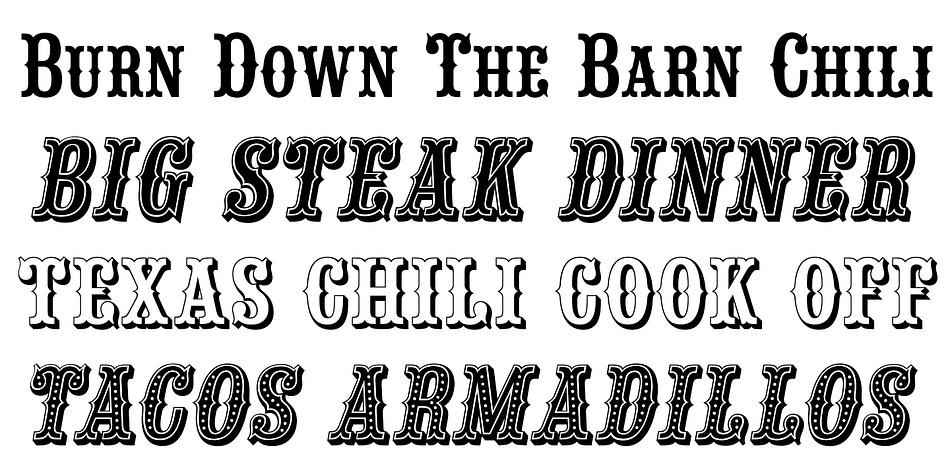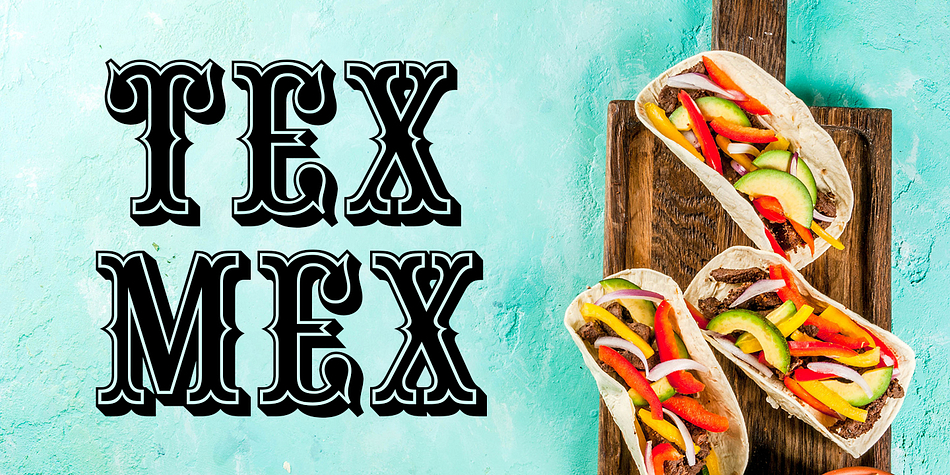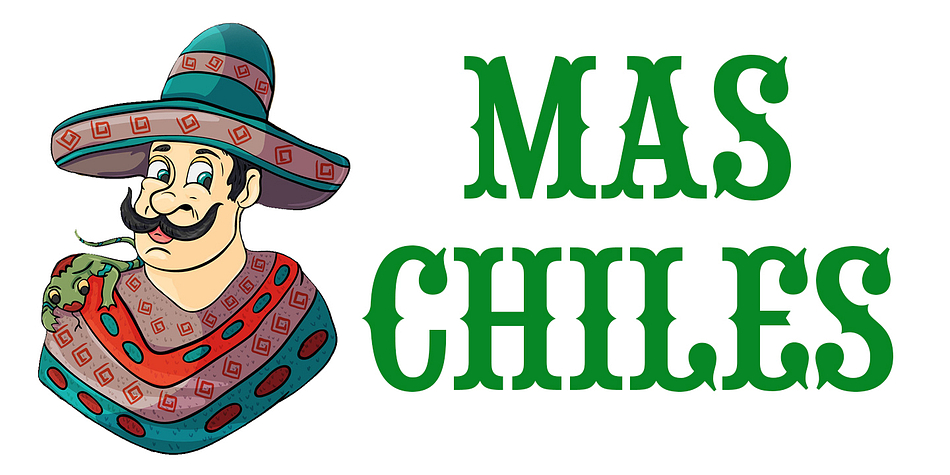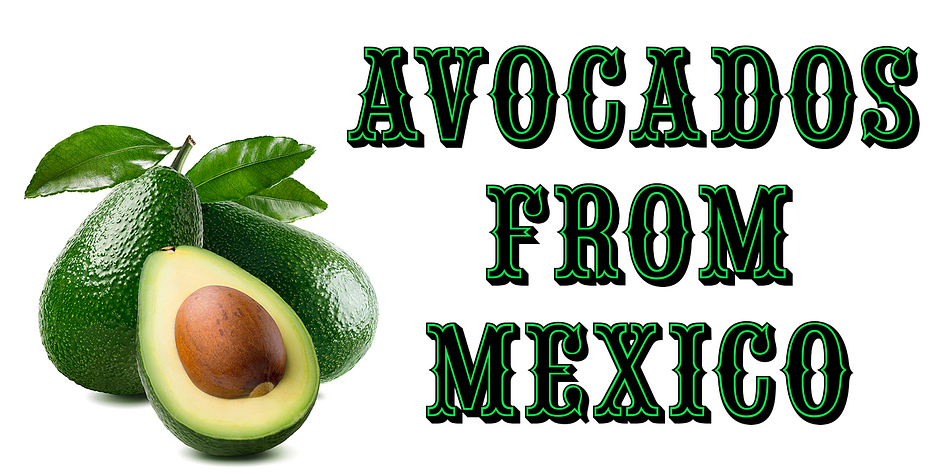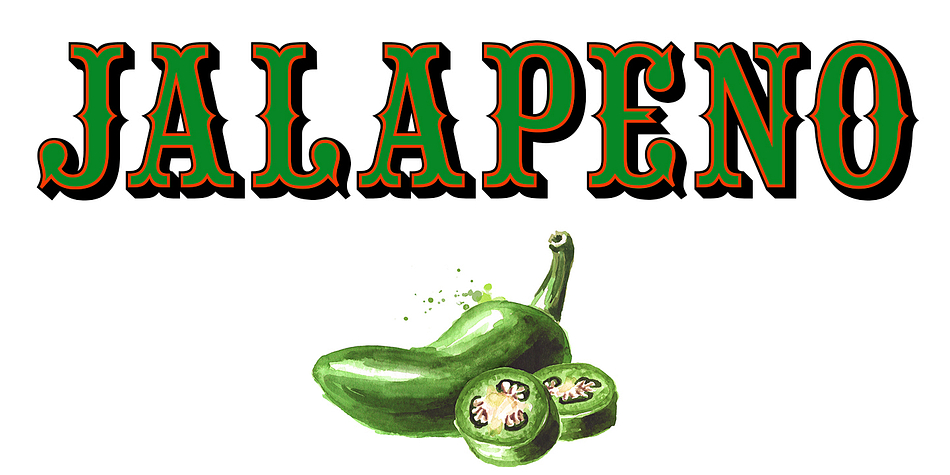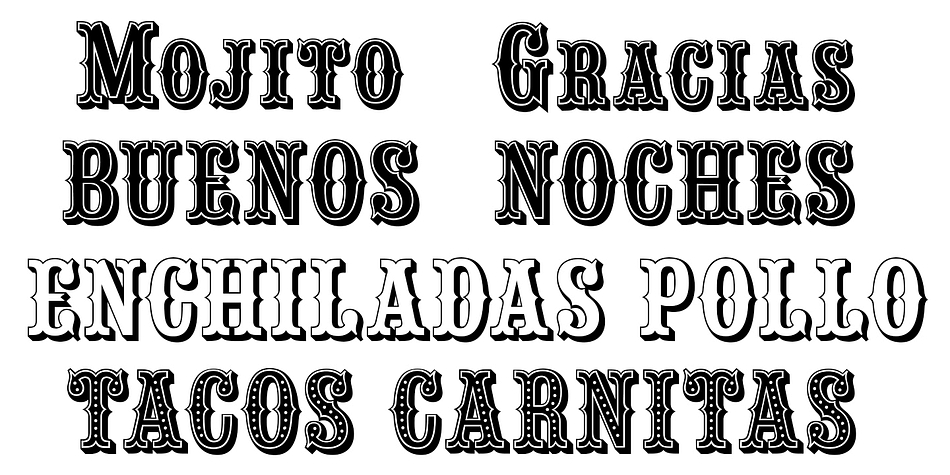
Designed by Michael Hagemann, Tex Mex is a western and wood type font family. This typeface has twenty-four styles and was published by FontMesa.
Tex Mex is simply a spurred version of our Saloon Girl font family.
When you think of a classic western font you think of spurs in the letters, with Tex Mex we set out to create a font that stands out and says Western.
Whether you’re making a new steakhouse menu or a new logo for your cowboy boot and hat company Tex Mex is the font you’re looking for.
If you’re having a Chili Cook Off, in the Texas style, you’re going to want Tex Mex for your sign to get those customers to buy your Chili, I know your chili is good but a good type font is the bait that lures in the customer.
Tex Mex, I’m hungry all ready.
Just like our Saloon Girl font Tex Mex also works in layers, to make a layered font image you’ll need an application that works in layers such as Illustrator or Photoshop.